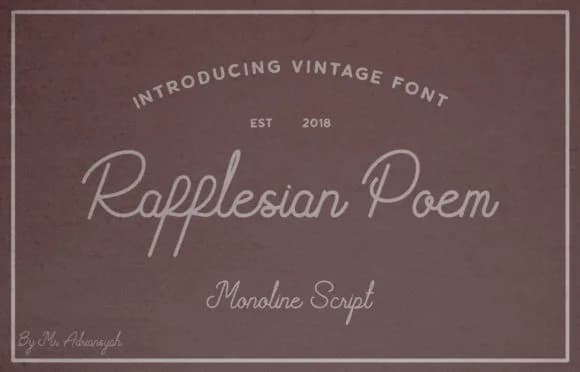
Rafflesian Poem Font by Adriansyah is a vintage script typeface that brings nostalgic elegance and refined character to contemporary design projects. With its flowing letterforms and carefully crafted proportions, this font excels at capturing attention for sophisticated applications that demand a distinctly vintage and timeless aesthetic.
The typeface performs exceptionally well for luxury brand identity work, particularly in creating distinctive logos and wordmarks for boutique fashion labels and high-end cosmetics brands. Wedding invitation suites benefit greatly from its romantic sensibility, while it also shines as an elegant choice for greeting card design and special occasion stationery. Vintage-inspired apparel designs and artisan product labeling are natural homes for this script's distinctive personality, whether applied to craft beverage labels, organic skincare packaging, or heritage brand collateral. The font's inherent versatility extends seamlessly to editorial and signage applications, where its character spacing and legibility at various sizes make it particularly effective for menu headers, poetry book titles, and decorative wall lettering.
Rafflesian Poem Font is a script font that shines as a display or heading face. Pair it with a clean sans-serif or serif font for body text β the contrast creates a clear hierarchy while the two styles stay balanced and easy to read.
Rafflesian Poem Font
by Adriansyah